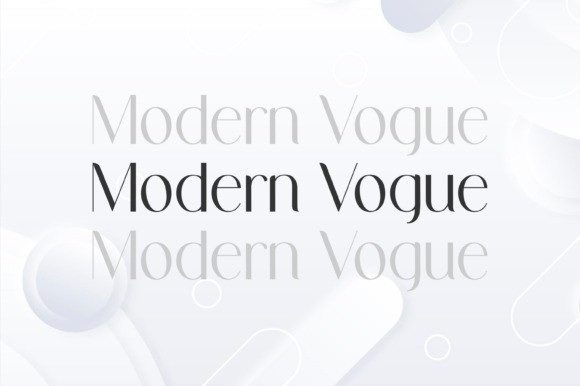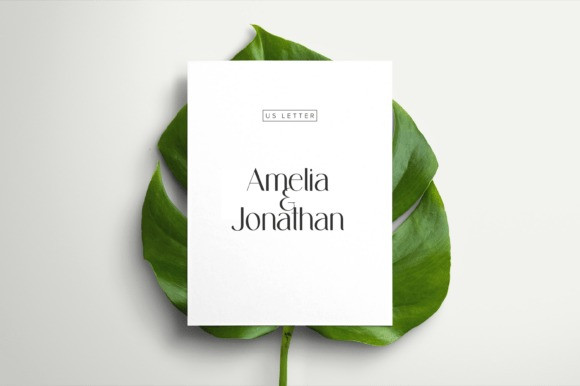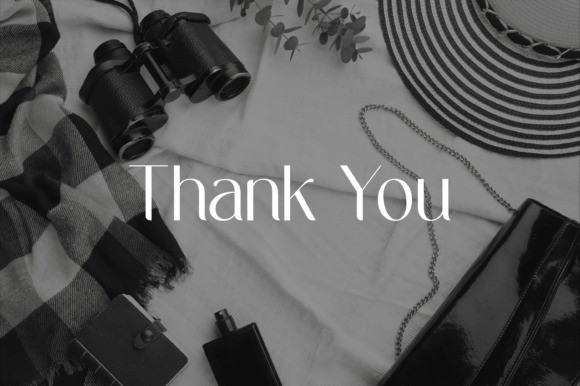
Modern Vogue Font
Modern Vogue Font is a refined serif font that blends contemporary sophistication with timeless elegance. Its sleek letterforms are defined by delicate contrasts, graceful curves, and elongated strokes that exude a sense of high fashion and luxury. The font’s sharp serifs and balanced proportions make it versatile, equally striking in bold editorial spreads as it is in minimalist branding.
Designed with precision, Modern Vogue font delivers a polished aesthetic that feels both stylish and professional, perfect for logos, magazines, packaging, invitations, and digital designs. With its chic personality and distinctive charm, this typeface transforms ordinary text into a statement of elegance and modernity.